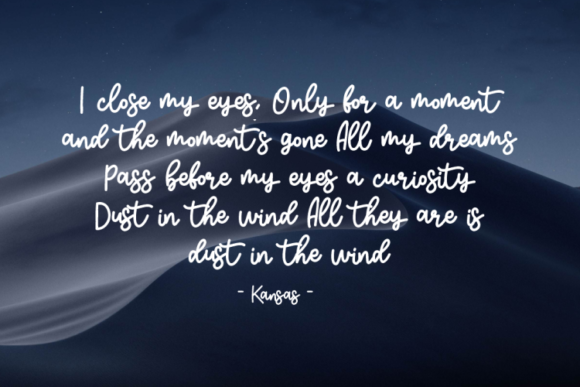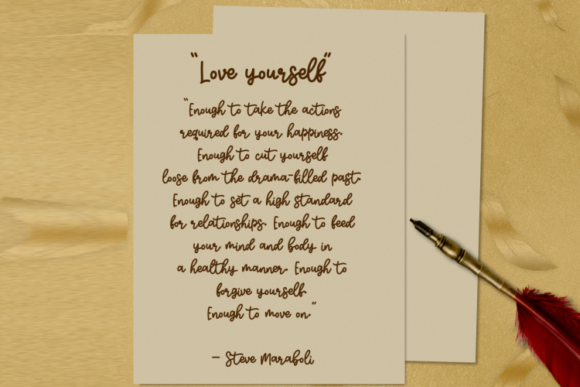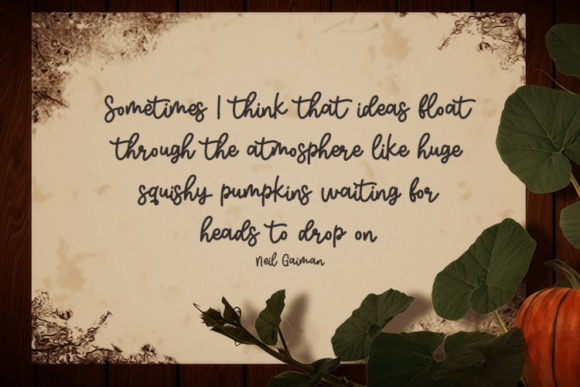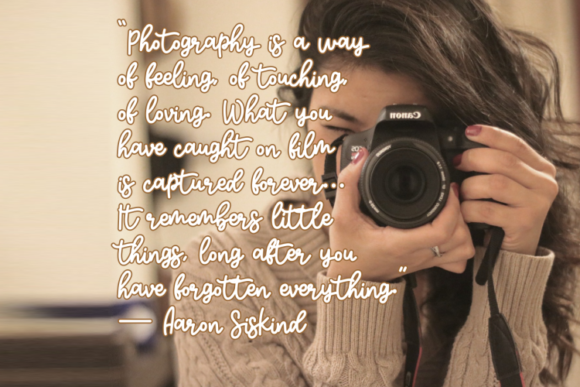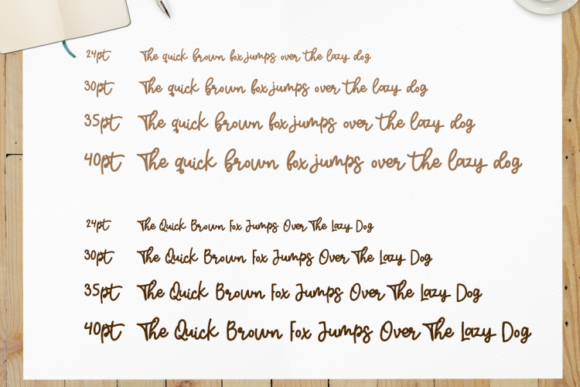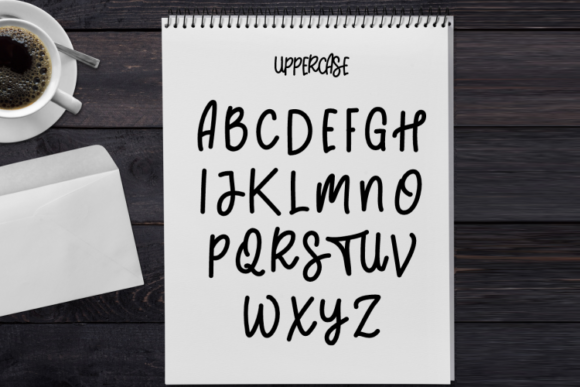
Discovering the Perfect Handwritten Touch
As a designer, there’s nothing quite like the thrill of bringing a project to life. The blank canvas, the blank page, the endless possibilities – it’s a moment of pure creative freedom. And then, the spark hits. You envision the perfect font, the one that adds a touch of elegance and whimsy to your design. For many, that font is Essenza – a stylish and incredibly elegant script font that’s perfect for adding a handwritten touch to any project.
Whether you’re crafting a wedding invitation, a thank you card, or a logo, Essenza Font is the perfect choice. Its sophisticated design and fluid curves make it a valuable asset for any designer looking to add a touch of sophistication to their work. And with its versatility, you can use it for anything from quotes to greeting cards – the possibilities are endless!
Essenza Font Key Features
- Character Count: The font family includes a total of 500 characters, including uppercase and lowercase letters, numbers, punctuation marks, and special characters.
- Unique Characteristics: Essenza Font features a modern, elegant design with subtle rounded edges, making it ideal for corporate branding, advertising, and editorial projects.
- Font Weight and Style: Essenza Font comes in 6 weights (Light, Thin, Regular, Medium, Bold, Black) and 2 styles (Regular and Italic), offering versatility for various design applications.
Essenza Font Review
Overall, I think Essenza Font is a lovely, elegant script font that’s perfect for adding a touch of sophistication to your designs. Here’s what works well:
- ✨ Elegant and refined: Essenza Font has a beautiful, cursive feel that’s reminiscent of high-end fashion or luxury brands.
- ✨ Versatile: It’s suitable for a wide range of applications, from wedding invitations to branding and marketing materials.
- ✨ Smooth connections: The font’s connections between letters are smooth and flowing, making it a pleasure to read.
- ⚠️ Limited font weight options: While Essenza Font comes in a few weights, it would be great to see more options for added flexibility.
- ⚠️ May not be ideal for bold, headline text: Due to its elegant nature, Essenza Font might not be the best choice for bold, attention-grabbing headlines.
Overall, I think Essenza Font is a beautiful and elegant font that’s perfect for designers looking to add a touch of sophistication to their work. While it may have some limitations, I believe it’s a great choice for the right project.
Essenza Font is ideal for:
- Creating elegant and modern designs
- Adding a touch of sophistication to headings and titles
- Designing high-end logos and branding materials
Q: How many languages is Essenza Font available in?
Essenza Font is available in multiple languages, including English, Spanish, French, German, Italian, and many others. It supports Unicode characters, ensuring that it can display text in various languages without any issues.